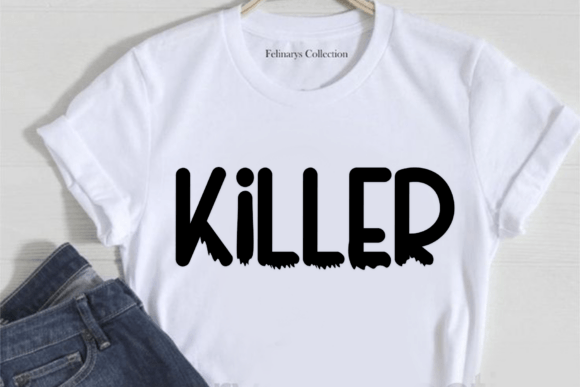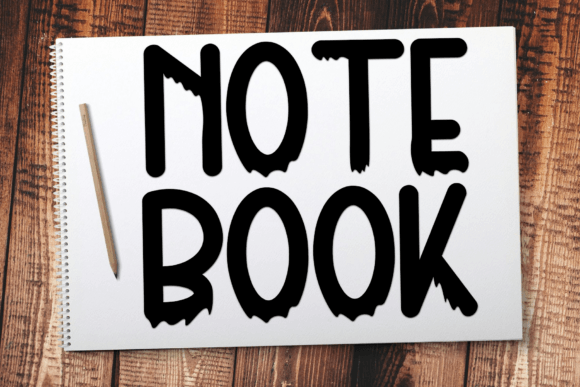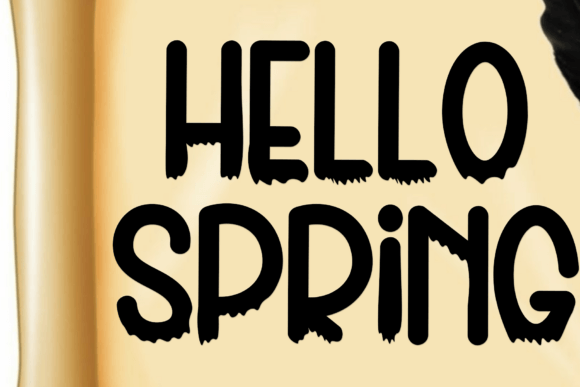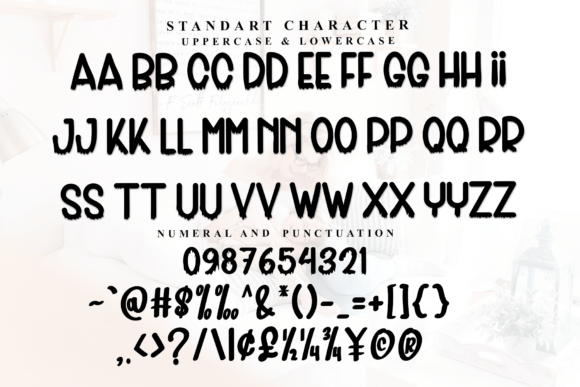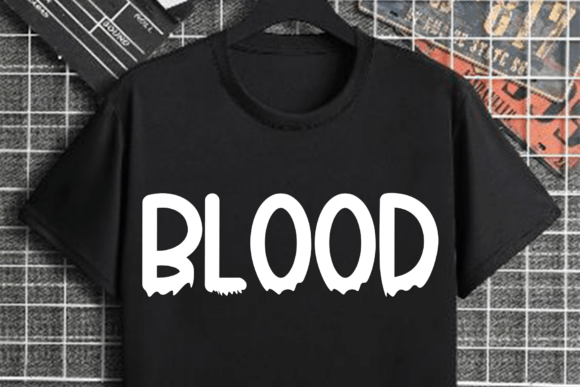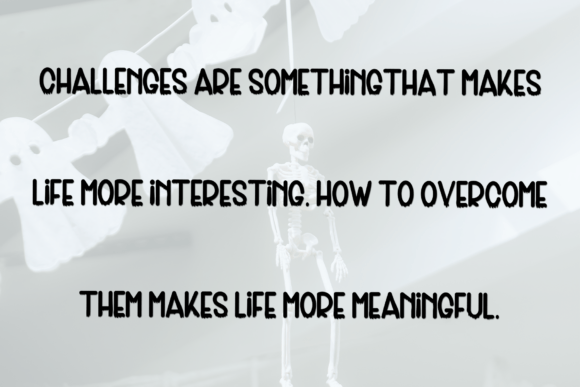
Introduction to Horror Snowing Font
Have you ever stared at a blank canvas, desperately seeking the perfect font to bring your creative project to life? For designers, this moment of uncertainty can be a daunting experience. But what if you stumbled upon a font that effortlessly evokes a sense of warmth and friendliness, making your design process a joyous experience? This is exactly what the Horror Snowing Font offers.
Designed with a high-quality, hand-drawn aesthetic, the Horror Snowing Font is a design resource that’s sure to captivate your audience. Its round, playful strokes create a relaxed and approachable feel, perfect for personal projects, invitations, and social media graphics. With its transparent background and standard PUA Encoded glyphs, this font is compatible with various application engines, making it a valuable addition to your design toolkit.
For designers seeking a free download that’s both creative and versatile, the Horror Snowing Font is an excellent choice. Its charming, unique touch adds a personal flair to any design, making it a valuable resource for those looking to elevate their creative projects. So why settle for an ordinary font when you can unleash the magic of the Horror Snowing Font on your next design?
Key Features of Horror Snowing Font
- Unique and eerie design perfect for creative projects that require a high quality, spooky atmosphere.
- Designed to evoke a sense of horror and suspense, making it perfect for Halloween-themed designs, creepy illustrations, and more.
- Can be used in various creative projects, such as posters, flyers, social media graphics, and even video game design.
Honest Review: Horror Snowing Font
I recently stumbled upon the Horror Snowing Font, and I must say it’s a unique addition to my design resources. This high-quality font is perfect for a creative project that requires an eerie and mysterious atmosphere.
The font features a transparent background, making it easy to customize and integrate into various designs. One of the standout features of this font is its versatility – it can be used for both digital and print projects.
Here are some of the things that work well with the Horror Snowing Font:
- ✨ Unique design that adds a touch of horror to any project
- ✨ High-quality and detailed font that’s perfect for creative projects
However, I do have to mention a few limitations:
- ⚠️ Limited character set, which may not be suitable for projects that require a wide range of characters
- ⚠️ May not be suitable for projects that require a clean and simple design aesthetic
Overall, I’m impressed with the Horror Snowing Font, and I think it’s a great addition to any designer’s toolbox. Whether you’re working on a horror-themed project or just want to add a touch of mystery to your design, this font is definitely worth checking out.
Tips for Getting the Most Out of Horror Snowing Font
Use a high-quality image with a transparent background to ensure the font stands out. Experiment with different font sizes and colors to achieve the desired effect. Consider using the font in conjunction with other design elements, such as images or graphics, to create a unique and eye-catching design.
The Horror Snowing Font is ideal for creative projects, such as posters, social media graphics, and presentations. It can also be used in design projects that require a spooky or eerie atmosphere, such as horror movie promotions or haunted house decorations.